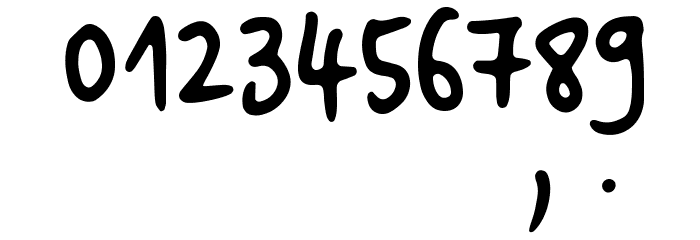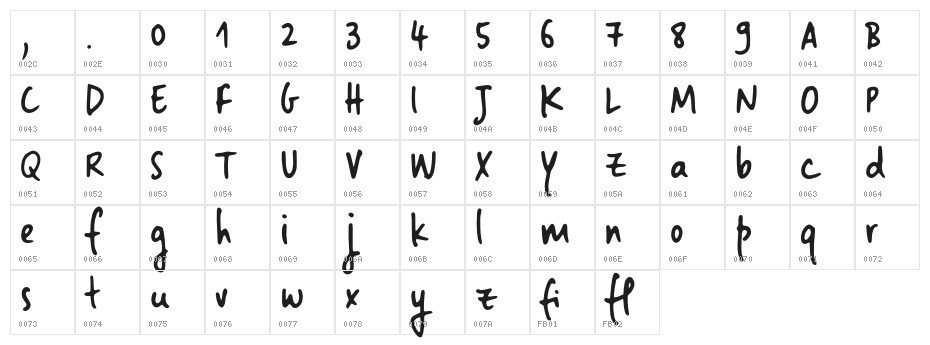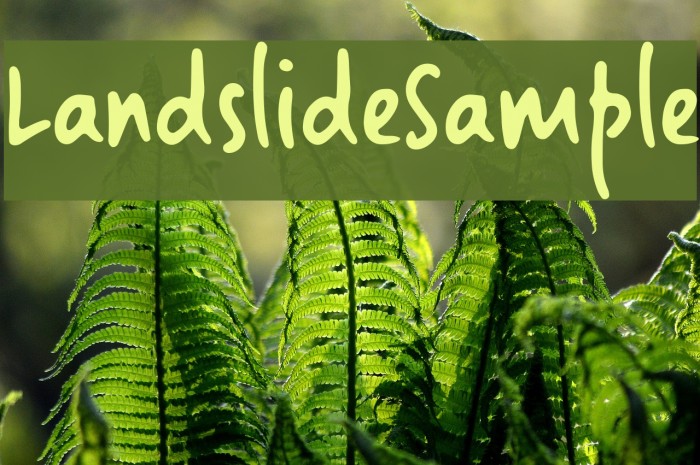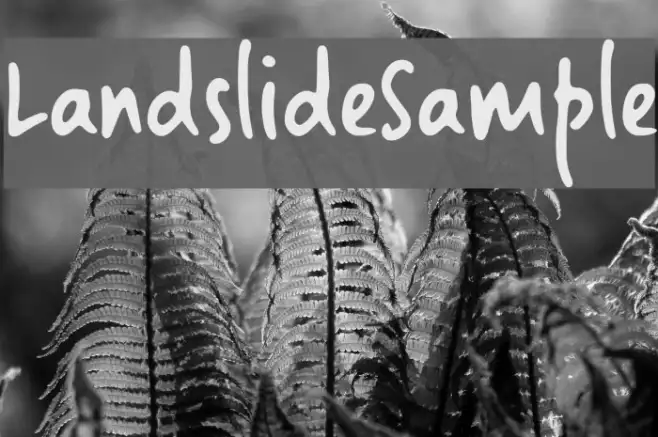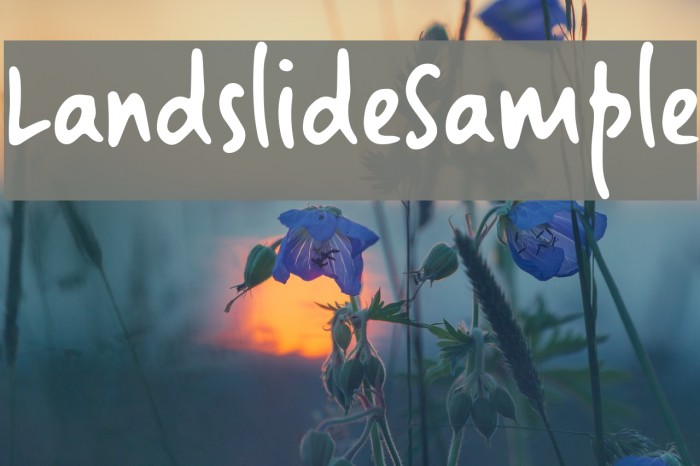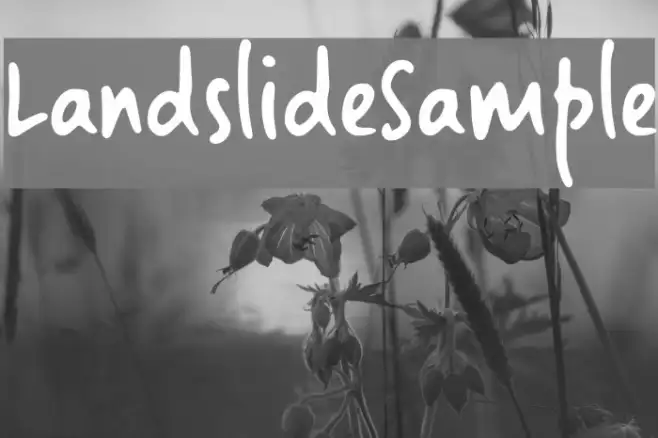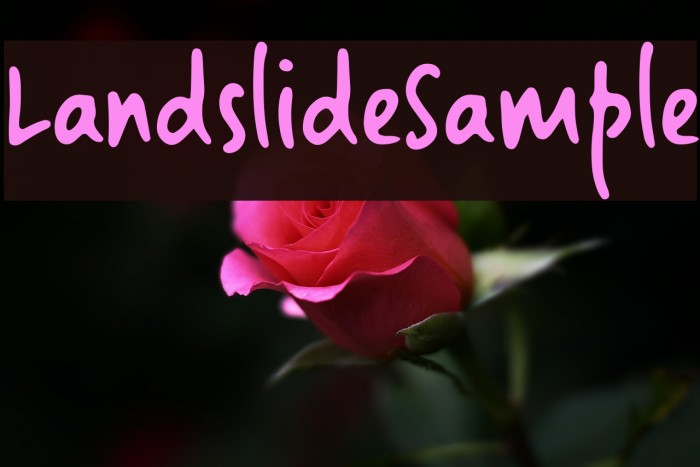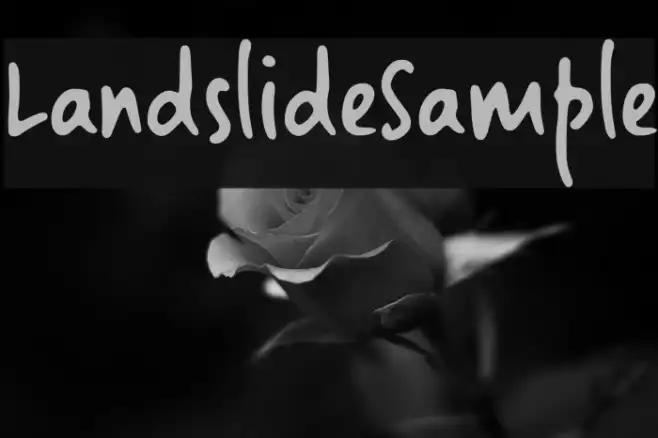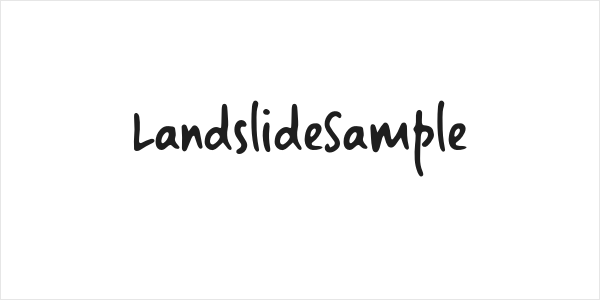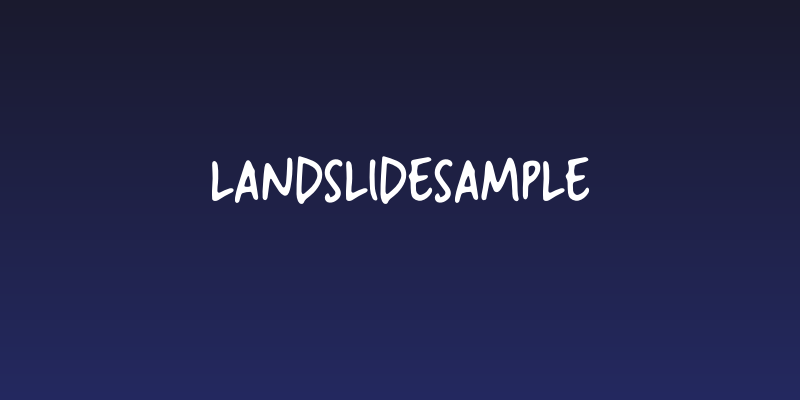
LandslideSample Font
LandslideSample Description
This font exhibits a playful and informal handwritten style, characterized by its uneven strokes and organic flow. The letters have a casual, friendly appearance, with a slight slant that adds to the dynamic feel. The uppercase and lowercase letters maintain a consistent style, with rounded edges and varying stroke widths that give it a lively, spontaneous look. The numerals and special characters follow the same aesthetic, ensuring a cohesive appearance across all elements. This font's unique charm makes it suitable for projects that require a personal touch.
| Proposed Projects | Ideal for greeting cards, children's books, casual branding, and social media graphics. |